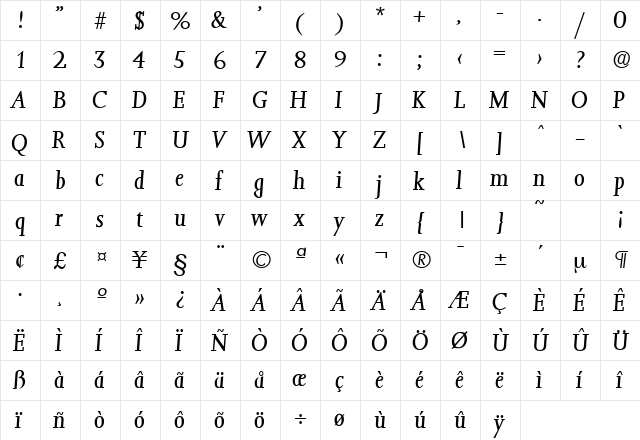
Jessica-Serial RegularItalic
Design Context for Jessica-Serial Typeface
Jessica-Serial takes a measured approach to typography — its balanced proportions and neutral character make it a reliable workhorse for both digital and print work. Its italic angle brings a sense of urgency and motion to the letterforms.
Pro Tip: Use Jessica-Serial for emphasis, pull quotes, and subheadings where its slanted energy can add rhythm to the layout.